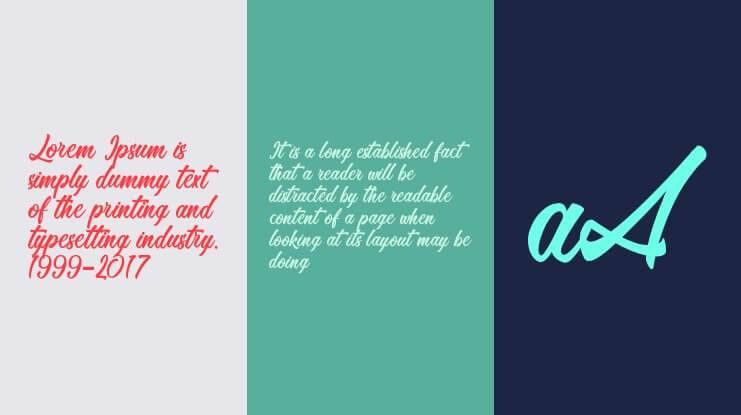
About Romantic Beach Font
Romantic Beach is a high-quality calligraphy and script font. Octotype produced and published the Font, which is free to download and use for personal purposes. All uppercase and lowercase letters and a few special characters are included in the free version. On June 28, 2018, the Font was made public. The font also looks fantastic in a variety of light colours. Because it is a really beautiful Script font, it might be used in any form of writing project.
The fonts also have a lovely calligraphy touch, making them ideal for any form of artistic project. Windows, Apple/Mac, Linux, Cricut, Silhouette, and other cutting machines are all compatible with the lovely script and calligraphy Font. The gorgeous Typeface can easily be converted to a web font at any moment. The Typeface is available in two different formats: OTF and TTF. The method of obtaining the font is relatively simple, and it will undoubtedly improve the quality of your work. For individuals who continue to work in the natural habitat, this font is a must-have.
The Typeface has a coastal vibe to it, making it ideal for beach-themed posters and billboards. Romantic Beach is the ideal Typeface for all of your whimsical projects. The Romantic Beach can be used to create unique designs, covers, shop and store names, and logos. Romantic Beach is also suitable for branding projects, homeware designs, product packaging, and as a stunning text overlay on any background image.
| Style | Script, calligraphy. |